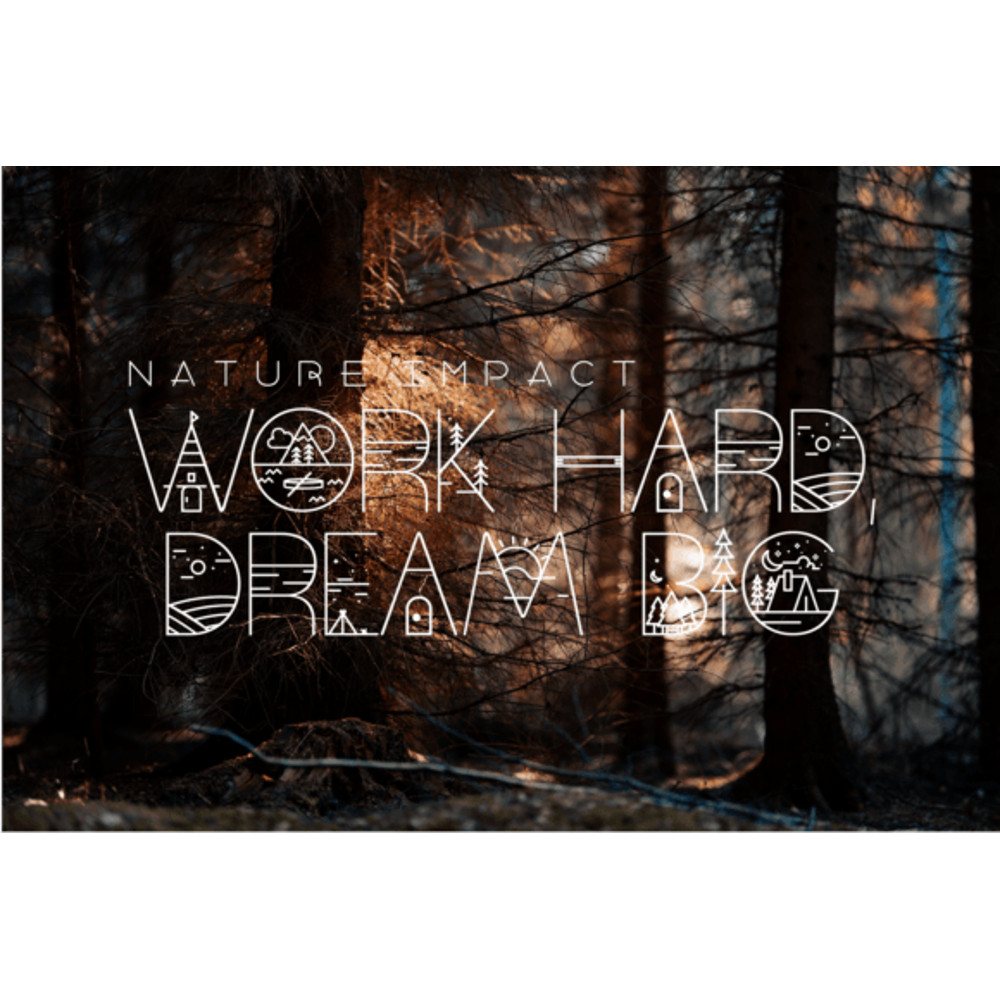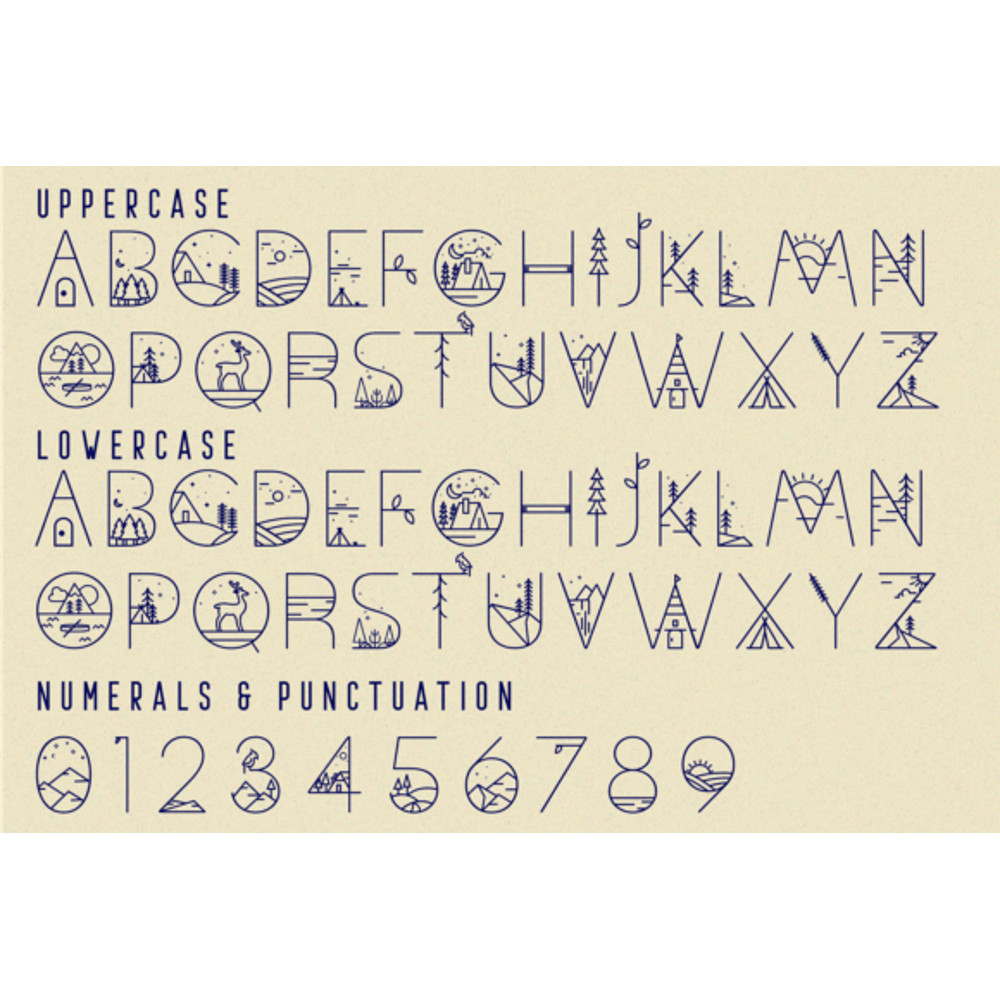
Nature Impact Font
Nature Impact font is a thin line font in nature style, uppercase is decorated with geometric and natural elements. Initials are ornamented with floral designs, flowers, plants, leaves, and many more.
This font will perfectly fit various label and logo designs. It’s working better with short big words when all the details are visible.